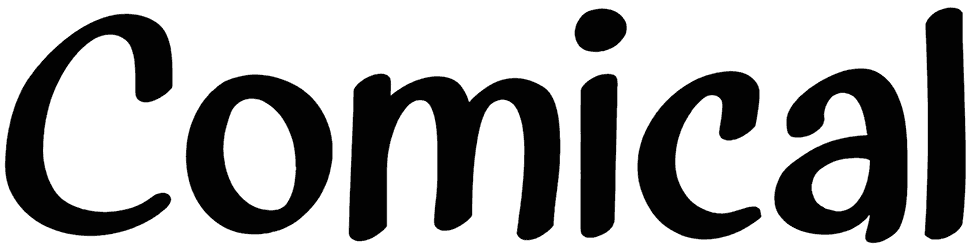
LT Comical Font
Would you like to show off your words with a cute and comical outward? LT Comical is a comic font with a smooth and minimal mood that can make this happen. This handwritten font with an almost full cover of characters is…
Would you like to show off your words with a cute and comical outward? LT Comical is a comic font with a smooth and minimal mood that can make this happen. This handwritten font with an almost full cover of characters is an apt item for various projects, from Instagram posts to packaging.
Usable for cartoons, comic books, and anything else of the like.